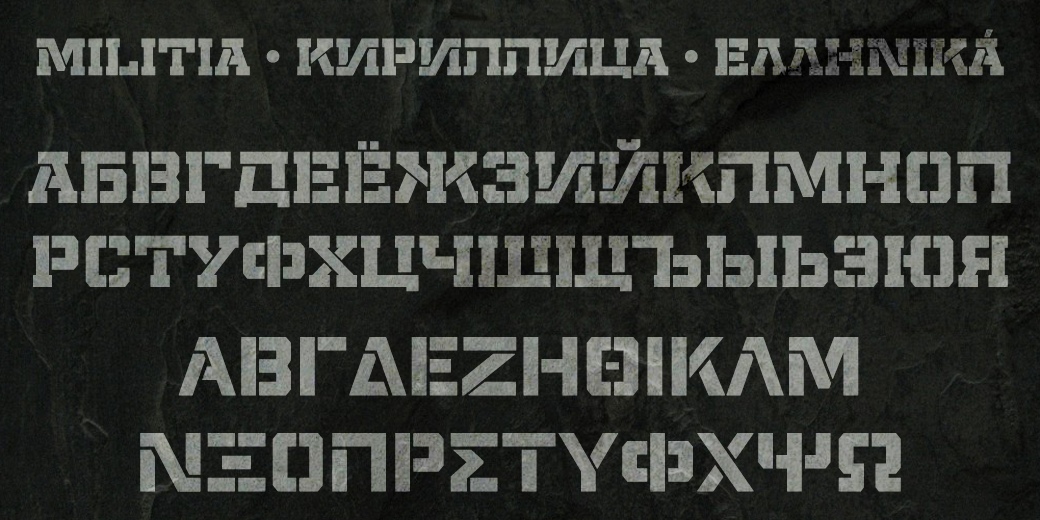
Militia Font
Militia Font is perfect for military honor organizations, veteran service branding, tactical equipment marketing, law enforcement communications, security service signage, patriotic event graphics, defense contractor presentations, and disciplined professional campaigns.
What makes Militia Font exciting is its disciplined strength that embodies military precision and organized valor with tactical authenticity and service dedication. The font features structured letterforms with military proportions and disciplined character that evoke formation drills, service medals, and the unwavering commitment of military service and organized defense. Its distinctive military styling and tactical appeal communicate discipline, honor, and professional service, making every message feel ordered with military precision and touched by the honorable tradition of military service and organized protection.
The Militia Font family includes regular weight with uppercase and lowercase letters, numerals, punctuation marks, and comprehensive tactical symbols. Premium versions often feature multiple weights and military alternates that enhance the disciplined, tactical aesthetic perfect for military and security applications.
This commanding military typeface brings instant authority and service credibility to any defense-focused project. Militia Font Free Download offers exceptional value for military organizations and security services seeking to communicate tactical excellence, service honor, and military professionalism to veterans and service-oriented audiences.
The disciplined character of Militia Font makes it particularly valuable for veteran organizations, tactical training companies, and military honor societies. Its excellent readability ensures service messaging and military communications remain clear while maintaining the distinctive tactical aesthetic that appeals to service members seeking authentic military experiences and professional discipline.
Military service marketers appreciate how Militia Font effortlessly conveys service authenticity and military honor. The font's structured proportions and tactical details create trustworthy service materials that establish connections with audiences who value military tradition, service dedication, and the disciplined excellence of organized military service and tactical professionalism.
The versatile discipline of this typeface extends to security training, veteran services, and military heritage preservation where tactical authenticity enhances service credibility and military appeal. Militia Font Free Download provides creative professionals with an essential tool for developing memorable, service-driven designs that resonate with audiences who embrace military honor, service discipline, and the structured excellence of organized military tradition in their service and security experiences.